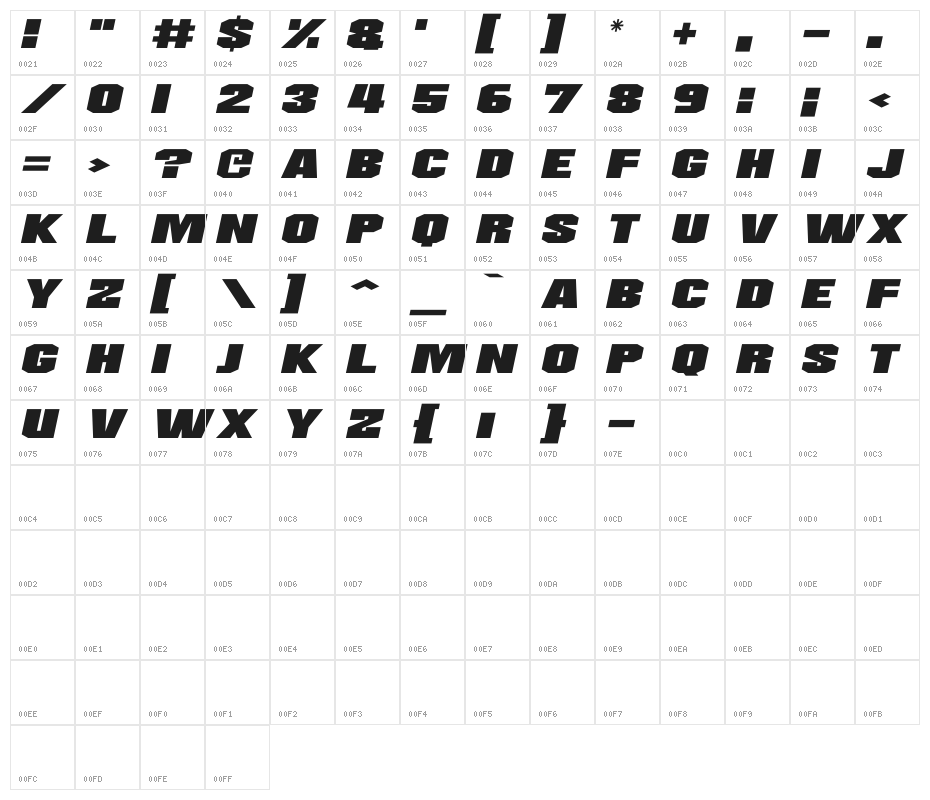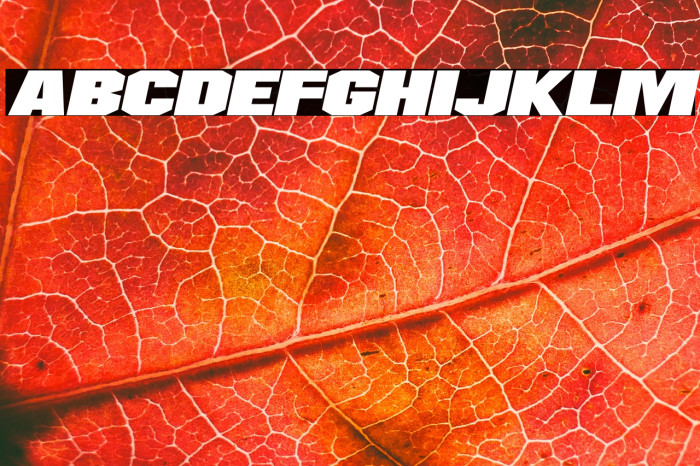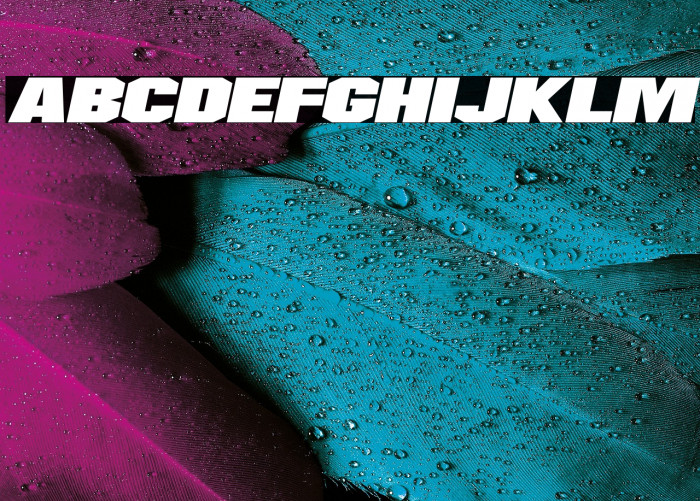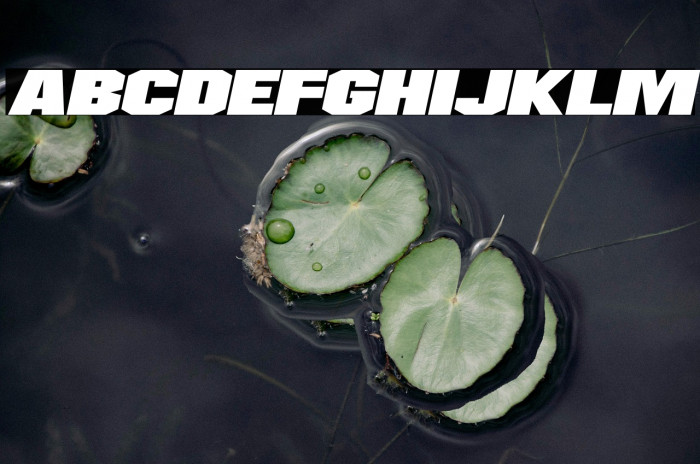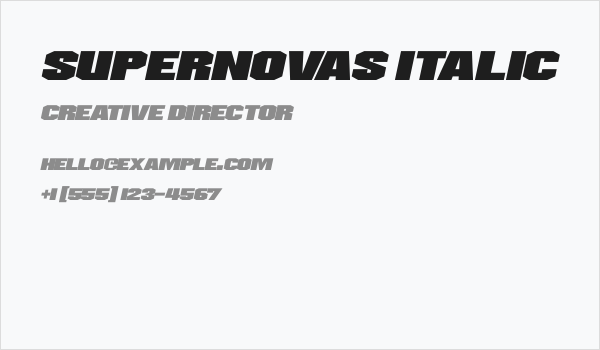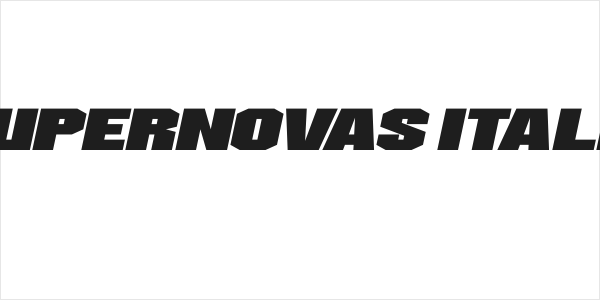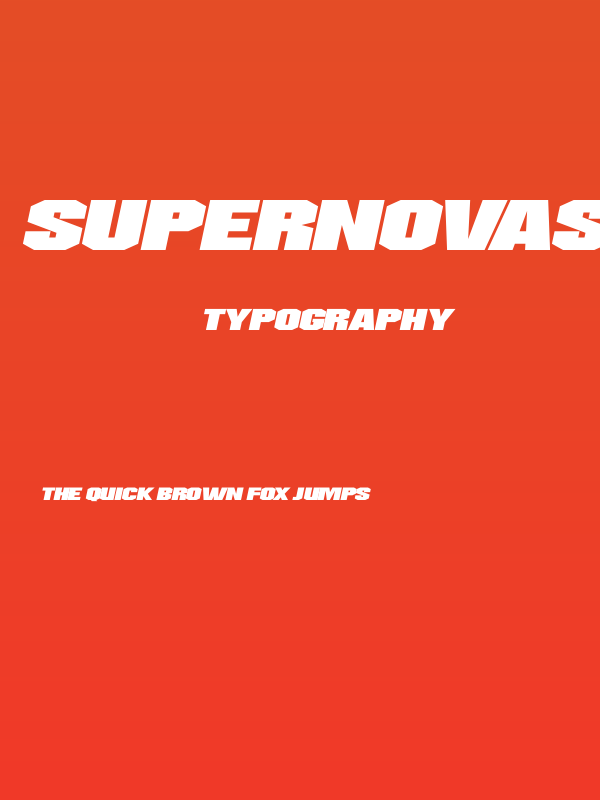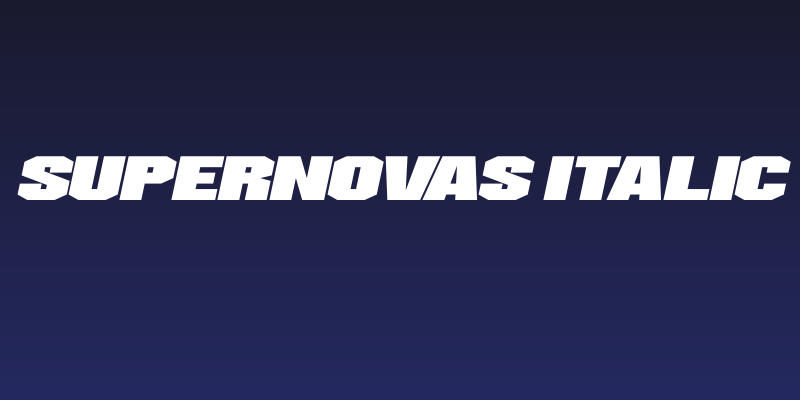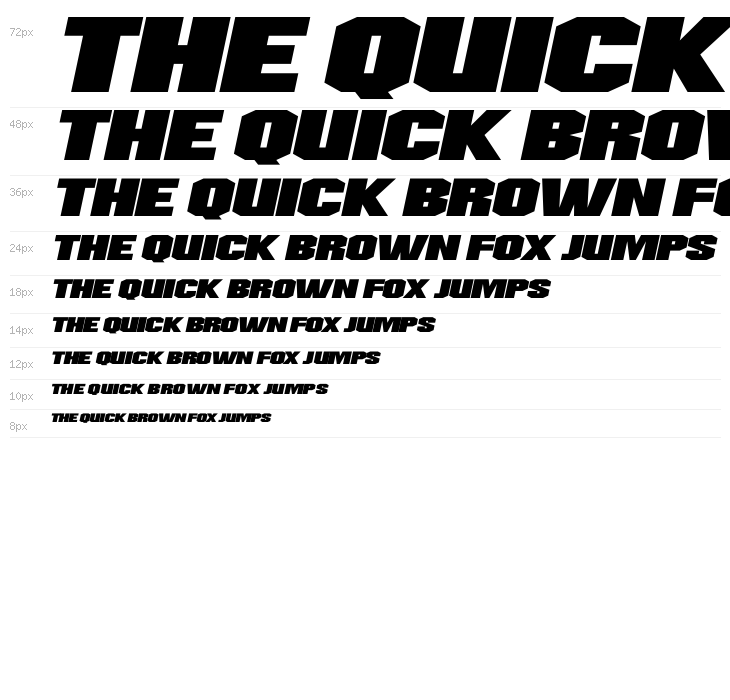
Supernovas Italic Font
Supernovas Italic Description
This font features a bold and dynamic style with a strong italic slant, giving it a sense of motion and energy. The characters are wide and robust, with sharp angles and a geometric design that conveys a modern and futuristic feel. The uppercase and lowercase letters maintain a consistent weight, while the numbers and special characters are designed to match the overall aesthetic. The font's boldness and unique style make it stand out, suitable for projects that require a strong visual impact.
| Proposed Projects | Ideal for sports branding, action movie posters, video game titles, and dynamic advertising campaigns. |